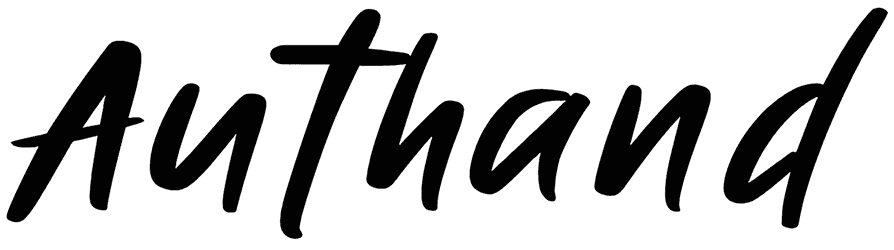
Authand Font
Authand is a stylish, unconnected 80s script font, conveying a warm, sociable feel. The bold, brushed characters look realistic, and you can include them wherever you wish to add a hand-drawn element. Authand is modern, and it provides a full set of complete letterforms that are playful. This font is best for CD covers, branding, packaging, adverts, movies, and wherever you are planning for a trendy design.